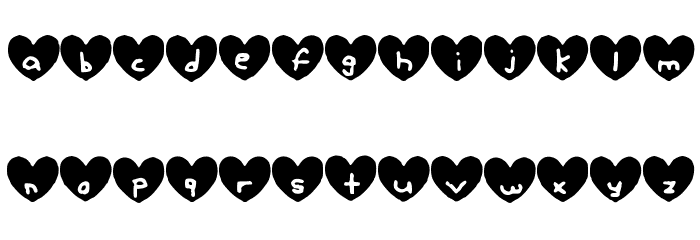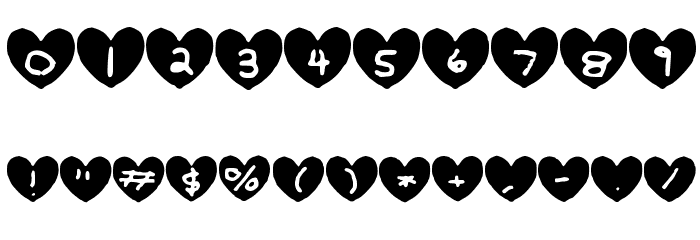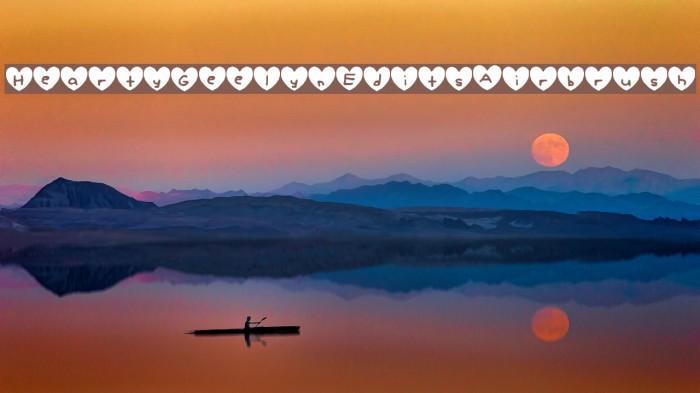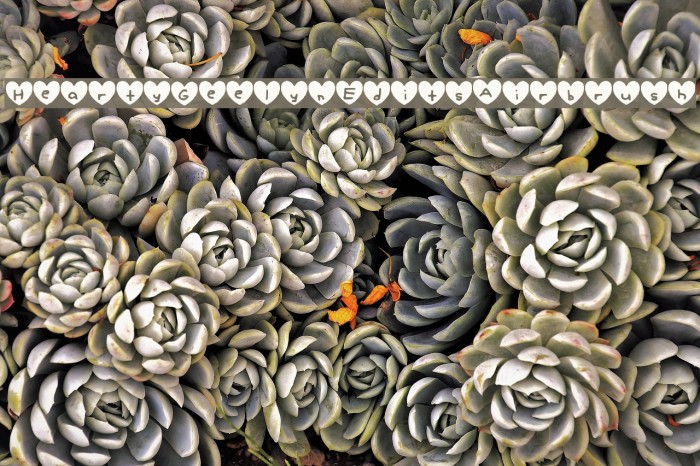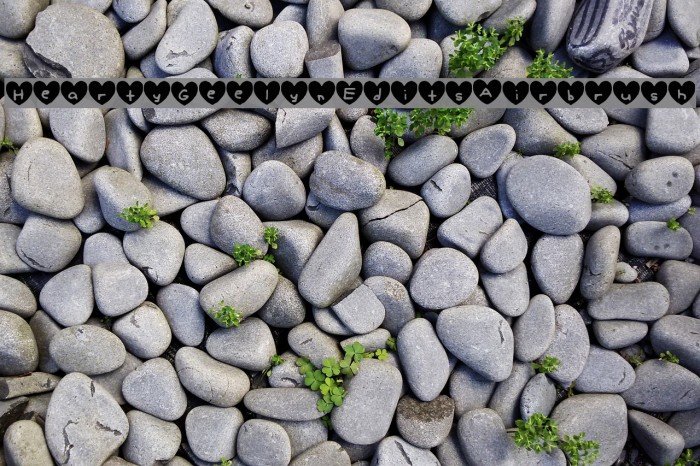
Hearty_Geelyn_Edits_Airbrush Font
This font features a playful and decorative style, with each character encased within a heart shape. The letters are bold and rounded, giving a friendly and approachable feel. The uppercase and lowercase letters maintain a consistent style, with slight variations in stroke thickness that add a hand-drawn charm. The numerals and special characters follow the same heart-encased design, ensuring uniformity across the font. This unique presentation makes it ideal for projects that require a touch of whimsy and creativity.
A playful, heart-encased decorative font with a bold, hand-drawn style.
- Proposed Projects: Ideal for Valentine's Day cards, wedding invitations, children's party invitations, and playful branding projects.
- Use Case: Headlines, Logos, Invitations